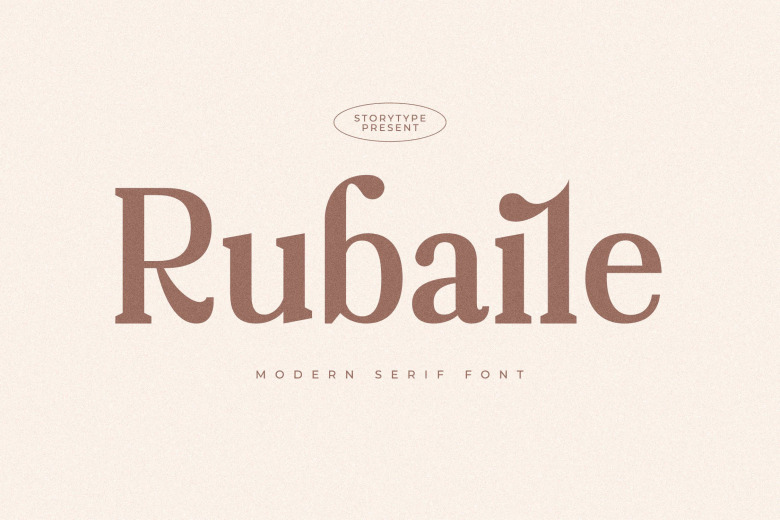
Rubaile Font
Usage guidelines This premiere font, Rubaile, is a modern and stylish serif font that is certain to create one-of-a-kind and stunning designs while still preserving a casual vibe.
Rubaile Serif Font